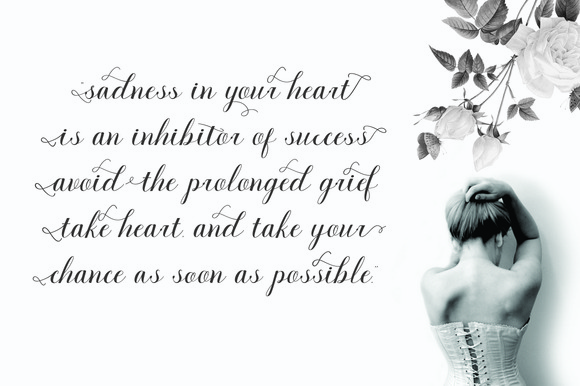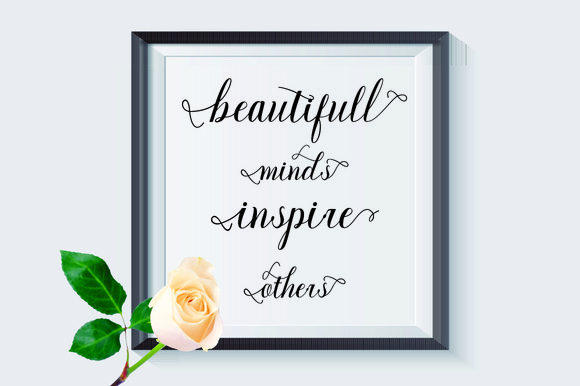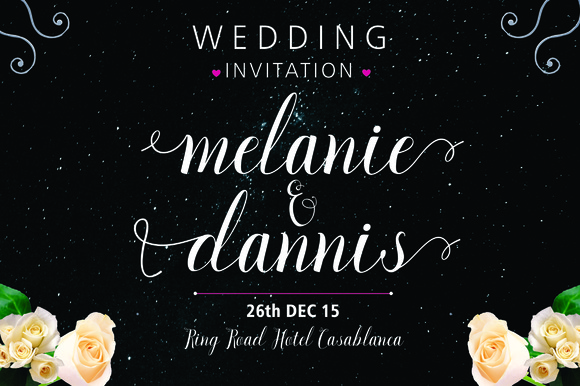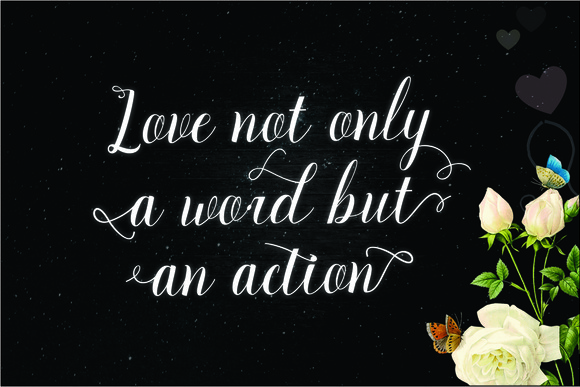
Biancca Script Font
About Biancca Script Font
Biancca is modern scrip calligraphy. This unique typeface can be used for various purposes such as wedding invitations, greeting cards, posters, labels, newspapers, book covers, correspondences, and much more!